19 Easy Bullet Journal Fonts Anyone Can Learn
A funny thing happens when people start a new bullet journal spread. They spend time choosing colors, planning the layout, and adding decorative details.
Everything seems to come together nicely. Then it is time to write the title. Suddenly, the page does not look quite as good as it did a few minutes earlier. The problem is not always the design. Sometimes it is simply the font.
Lettering has a bigger impact than many people realize. A bold font can make a page feel confident and energetic. A neat handwritten style can make the same spread feel calm and organized.
Even small changes in lettering can completely shift the mood of a page. That is why learning a few Easy Bullet Journal Fonts can be such a game changer.
You do not need advanced calligraphy skills or expensive markers. A handful of simple font styles can instantly make your journal look more polished.
The great thing about bullet journal fonts is that most of them follow easy patterns. Once you learn the basic structure, recreating them becomes much easier.
Before long, you will have a collection of go-to fonts for monthly covers, trackers, quotes, and daily pages.
In this guide, you will discover 19 font styles that are simple to learn, fun to use, and versatile enough for almost any journal spread.
19 Easy Bullet Journal Fonts Anyone Can Learn
Fonts That Make Strong First Impressions
1. Block Font
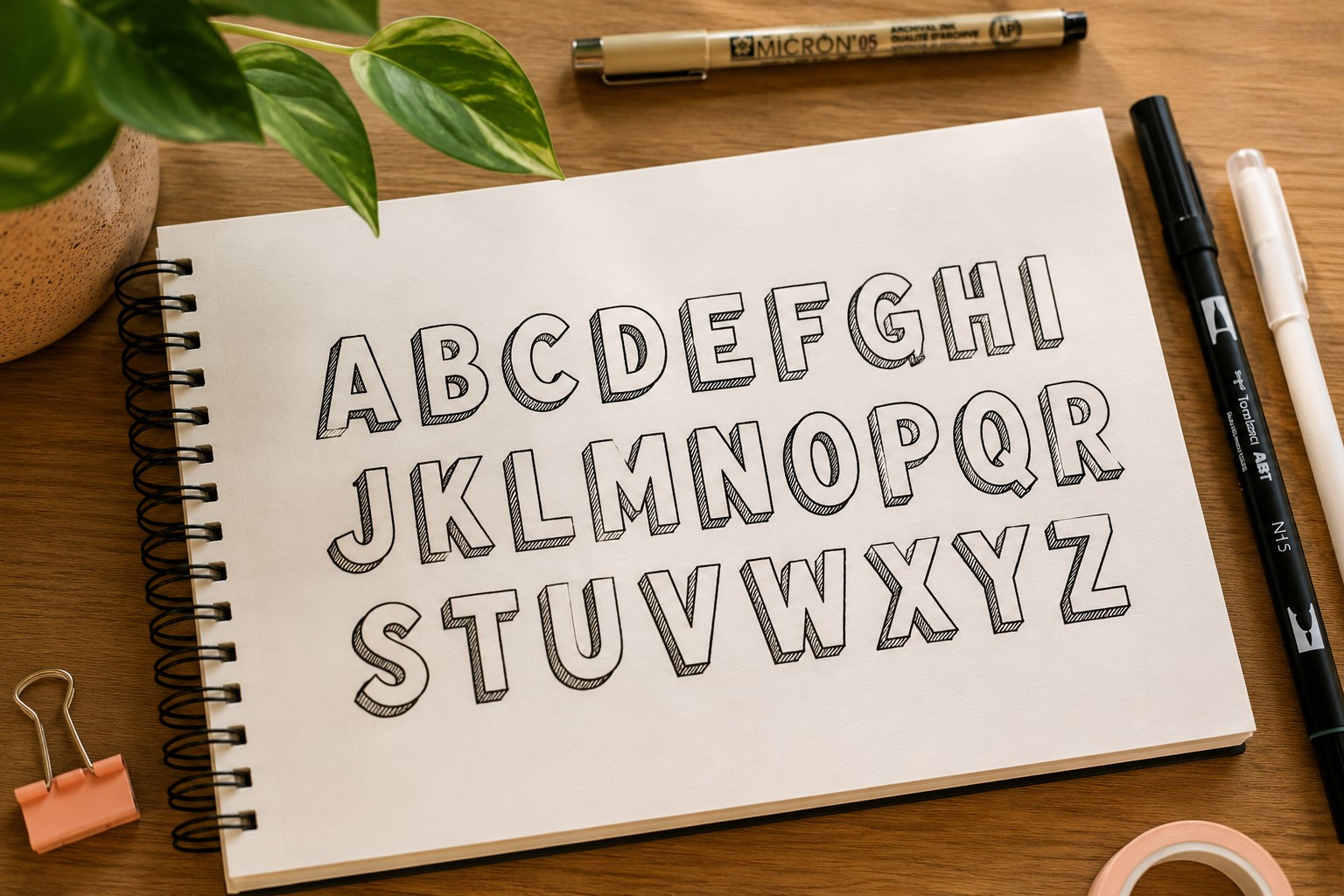
Imagine opening a bullet journal and seeing a bold title that instantly grabs your attention. Chances are, it is a block font.
This style remains one of the most popular Easy Bullet Journal Fonts because it looks impressive without requiring advanced skills.
The structure is simple. Start by writing your word lightly. Then draw larger outlines around each letter.
Once the outlines are complete, you can leave them empty or decorate them with patterns and color. Both approaches work beautifully.
Block fonts shine on monthly covers, yearly goals, and major section dividers. They create a strong visual anchor that helps organize the page.
Another benefit is that the letters stay highly readable even from a distance.
Many journal users eventually explore more decorative styles, yet they still return to block fonts because they are reliable, versatile, and easy to customize for almost any theme.
2. Bubble Font
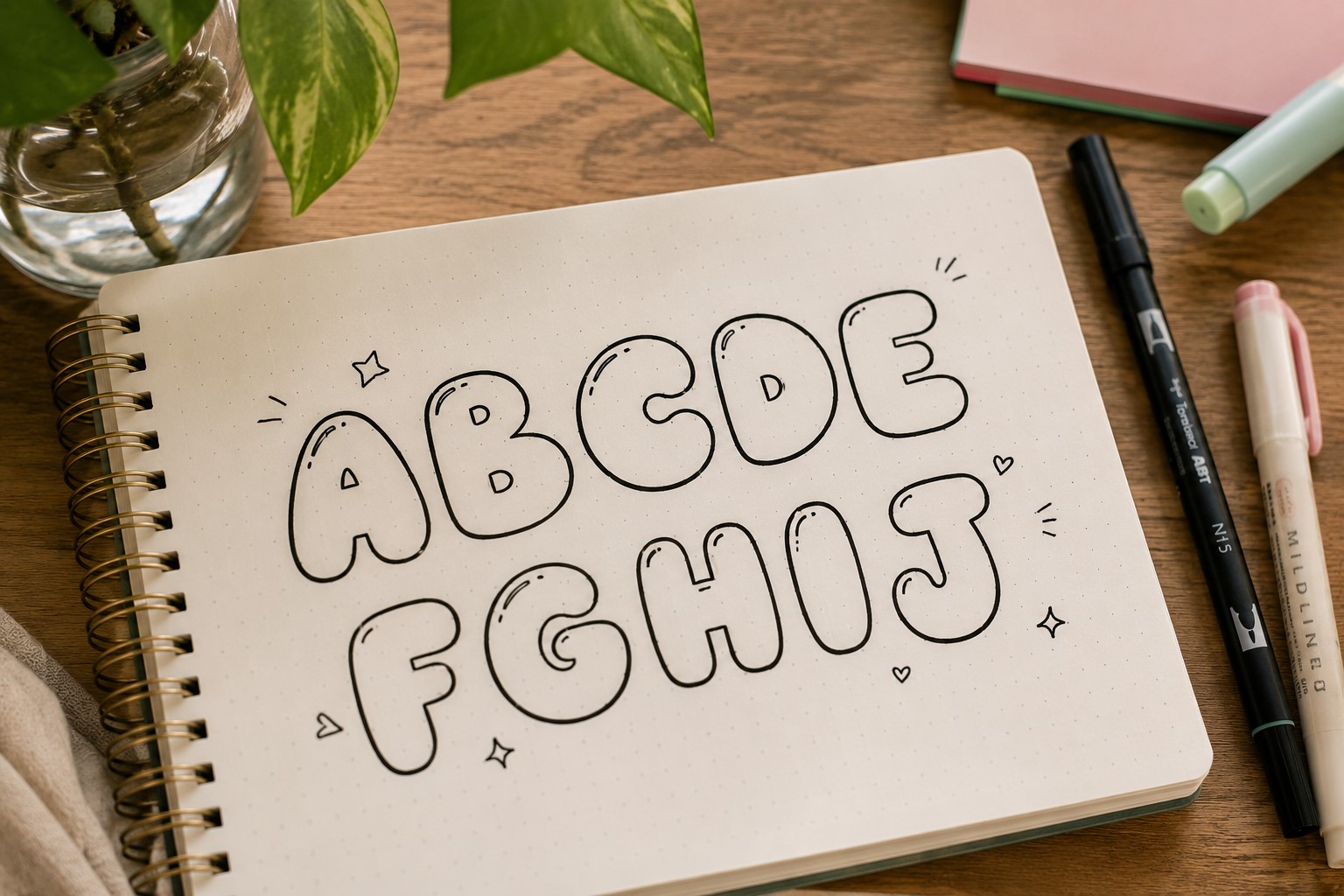
Some journal spreads need a little more personality. A bubble font can provide exactly that. The rounded letters instantly make a page feel friendlier and more relaxed.
Rather than focusing on perfectly straight lines, think about soft curves and smooth edges. The goal is to make each letter feel light and playful. Small imperfections often add charm rather than taking it away.
This style works especially well for birthday pages, memory spreads, wish lists, and creative challenges.
It also pairs nicely with colorful themes because the rounded letters already create a fun atmosphere.
Many people assume bubble lettering belongs only in children’s designs. In reality, it can look surprisingly stylish when used thoughtfully.
The key is keeping the spacing consistent and avoiding overcrowded letters.
3. Tall Skinny Font
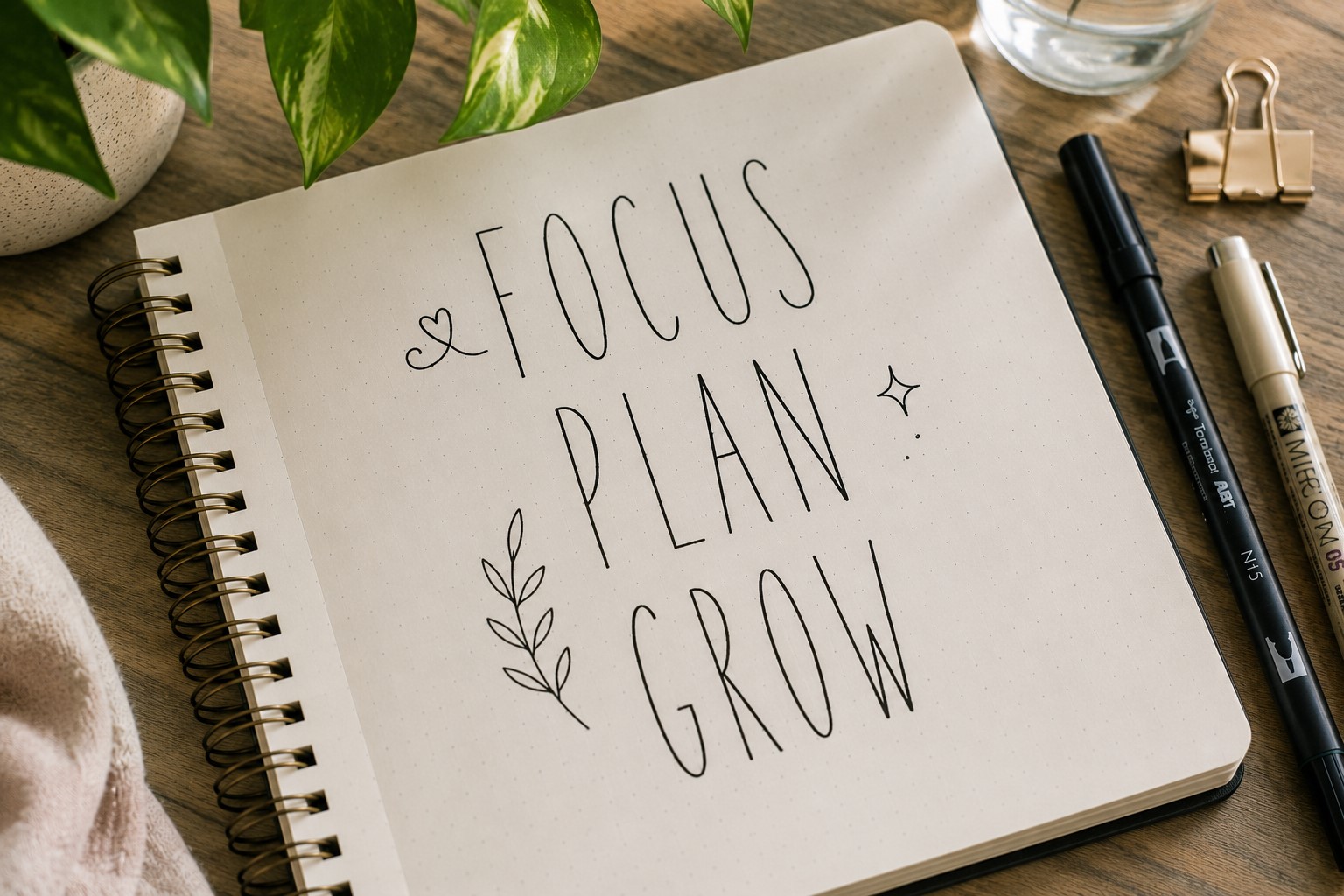
Have you ever tried fitting a long title into a narrow space? A tall skinny font solves that problem beautifully. Instead of making letters wider, you stretch them vertically.
This simple adjustment creates a surprisingly elegant appearance. The font feels modern and organized without demanding much attention.
That balance makes it useful in journals where the layout already contains decorative elements.
Many people discover this style by accident while trying to save space. Then they keep using it because it works so well. The letters look intentional, clean, and slightly sophisticated.
One helpful tip is to keep the spacing between letters consistent. Uneven gaps become more noticeable when letters are narrow. A little attention to spacing can dramatically improve the final result.
4. Rounded Print Font
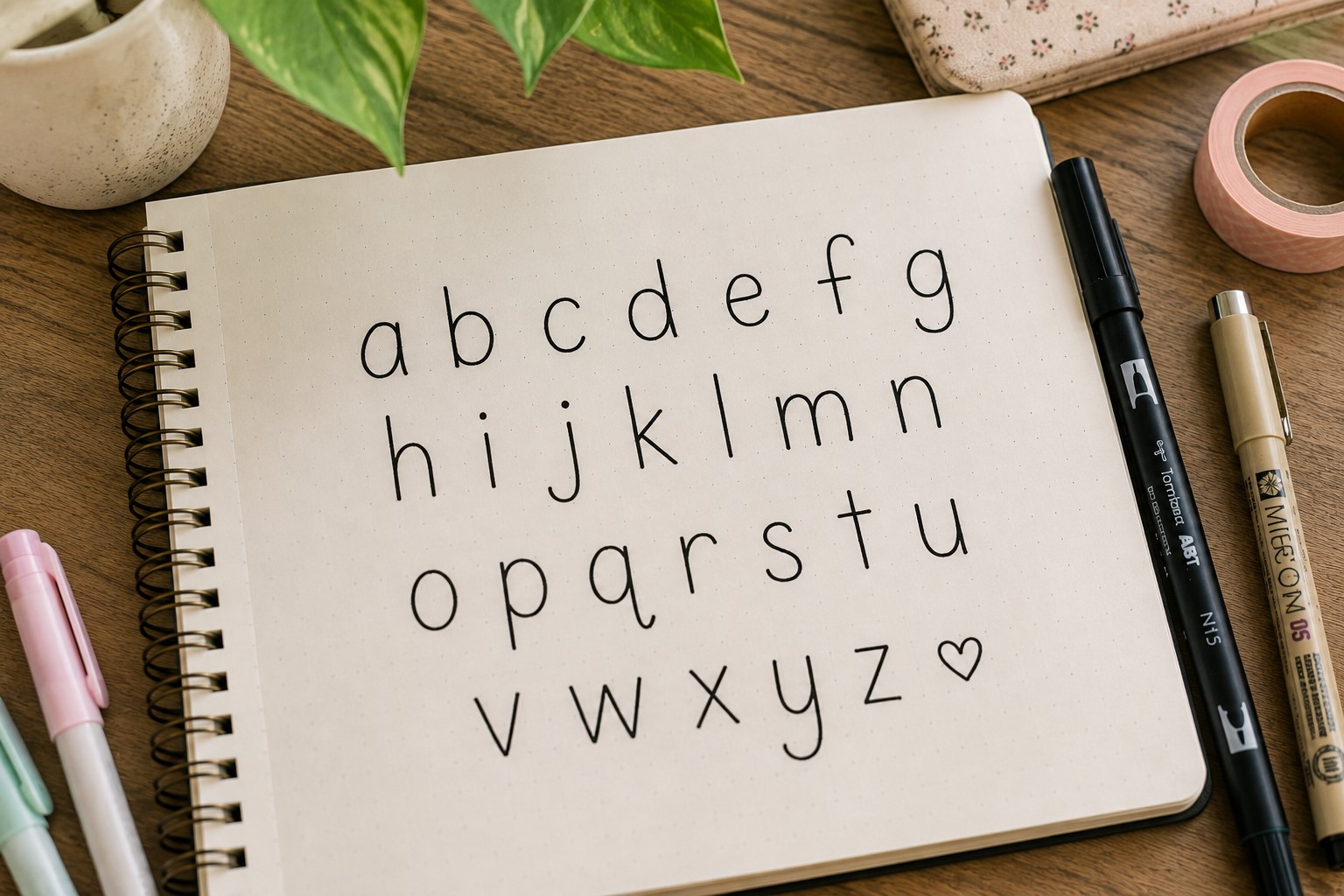
Not every title needs to make a bold statement. Sometimes a page benefits from lettering that feels calm and approachable. Rounded print lettering does exactly that.
The easiest way to create this font is by modifying your existing handwriting. Replace sharp corners with gentle curves. Round the ends of letters slightly.
Those small changes create a softer appearance without forcing you to learn a completely new style.
This font works beautifully in gratitude journals, wellness trackers, and reflective spreads. It feels welcoming without becoming overly decorative.
Many journal users appreciate how practical this font is. Unlike some styles that only work for titles, rounded print lettering remains readable throughout an entire spread.
For additional title inspiration, take a look at 21 Bullet Journal Title Lettering Ideas That Look Professional.
Fonts That Add Personality to a Page
5. Shadow Font
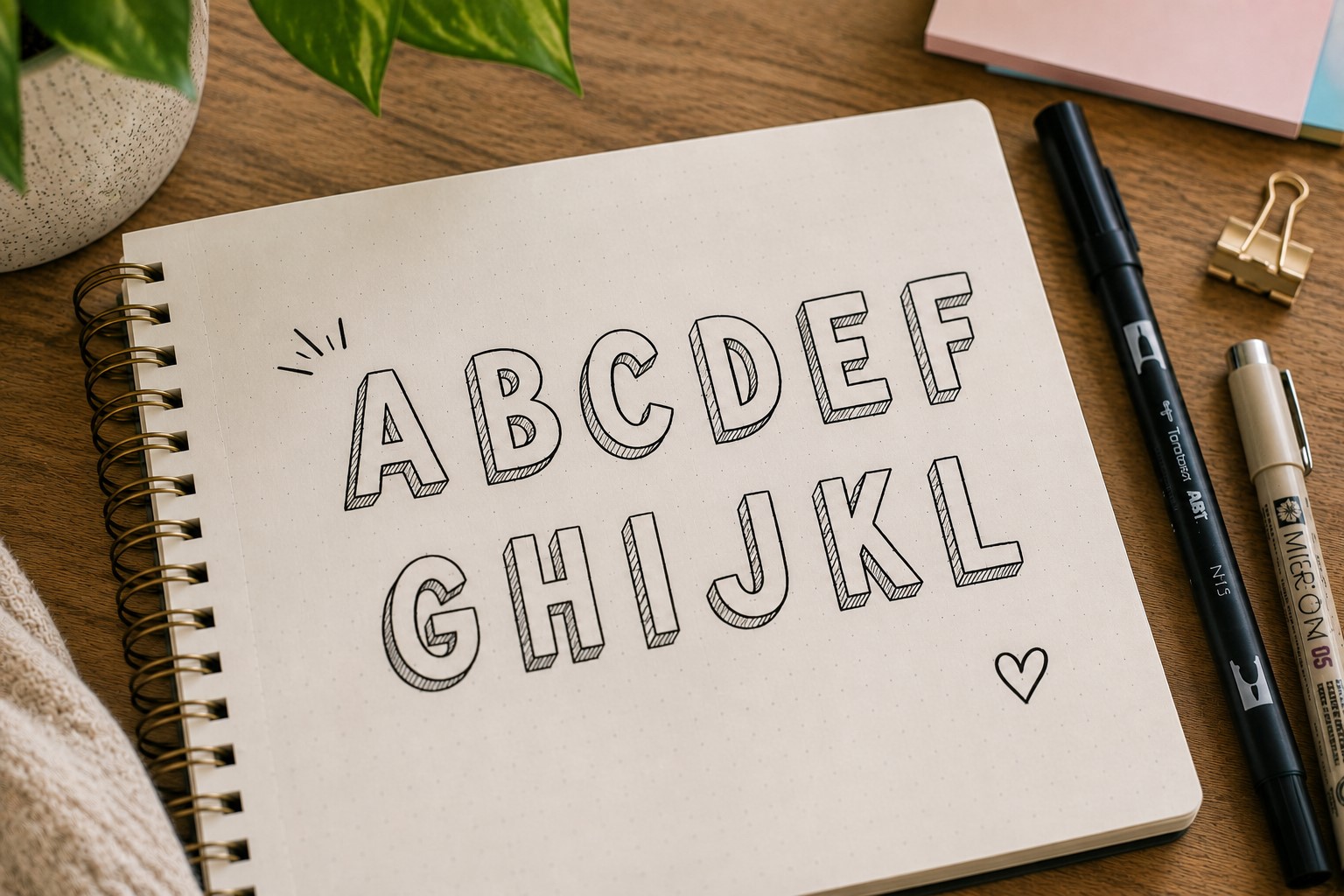
Sometimes a title looks good but still feels like something is missing. That missing detail might be a shadow. Adding a simple shadow can instantly make lettering look more polished.
The technique itself is straightforward. Draw your letters first. Then add a thin shadow along one side of each letter. Keep the direction consistent across the entire word.
The effect creates depth and helps the title stand out from the page. It also adds visual interest without making the design feel cluttered.
That balance makes shadow lettering one of the most practical Easy Bullet Journal Fonts to learn.
Smaller shadows usually look better than dramatic ones. A subtle effect often creates a cleaner and more professional appearance.
6. Serif Font
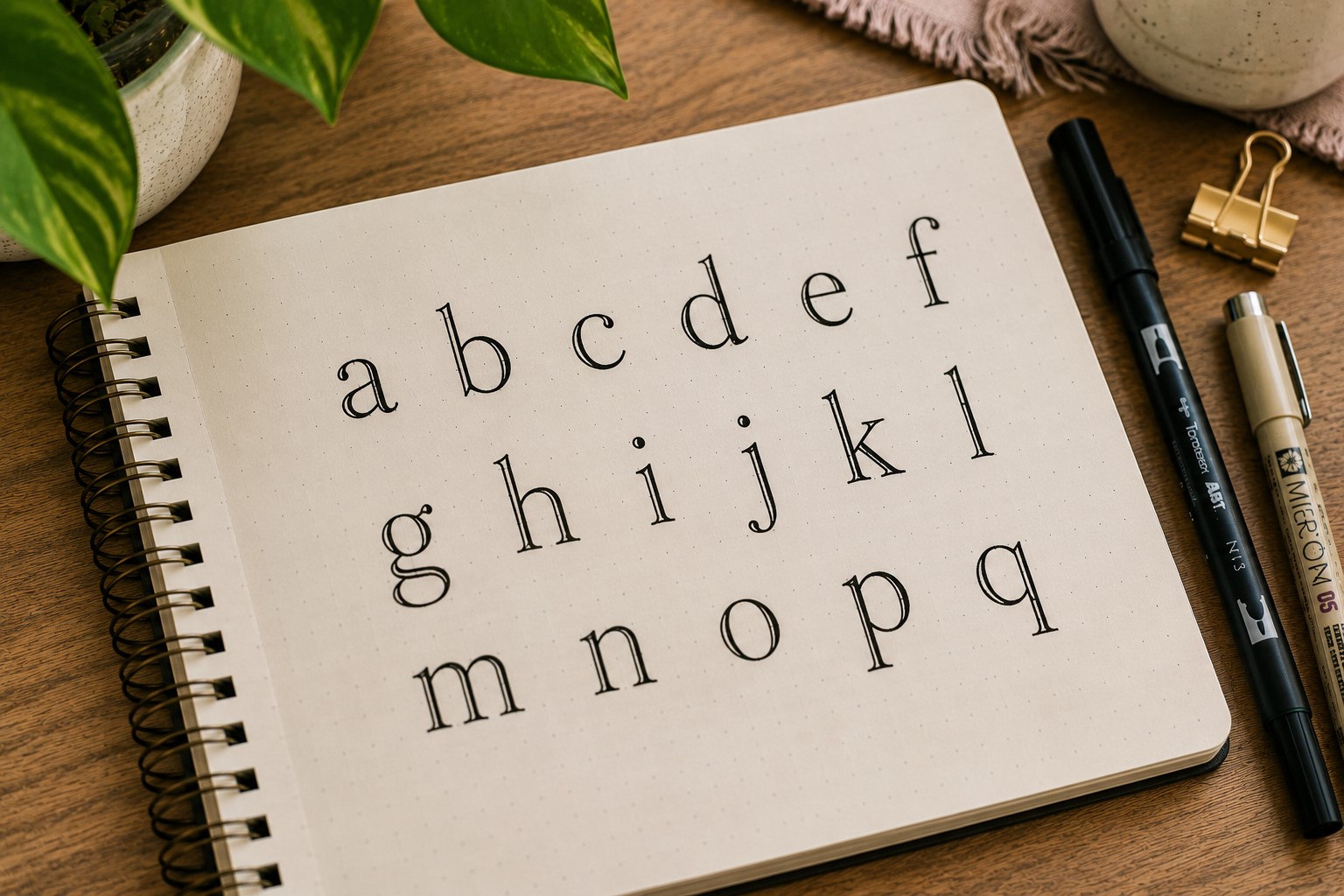
You have probably seen serif fonts in books, magazines, and newspapers for years. Those small finishing lines at the ends of letters create a timeless appearance that translates beautifully into bullet journals.
This style works especially well when you want a page to feel structured and refined. Reading logs, study planners, and goal-setting spreads often benefit from the extra sophistication.
Many beginners worry about drawing the tiny details correctly. Fortunately, the serifs do not need to be perfect. Even simple extensions can create the desired effect.
One reason this font remains popular is its balance. It feels decorative enough to stand out while remaining highly readable. That combination makes it useful for both titles and subheadings.
If you enjoy experimenting with elegant page designs, check out 25 Aesthetic Bullet Journal Lettering Ideas You’ll Love.
7. Outline Font
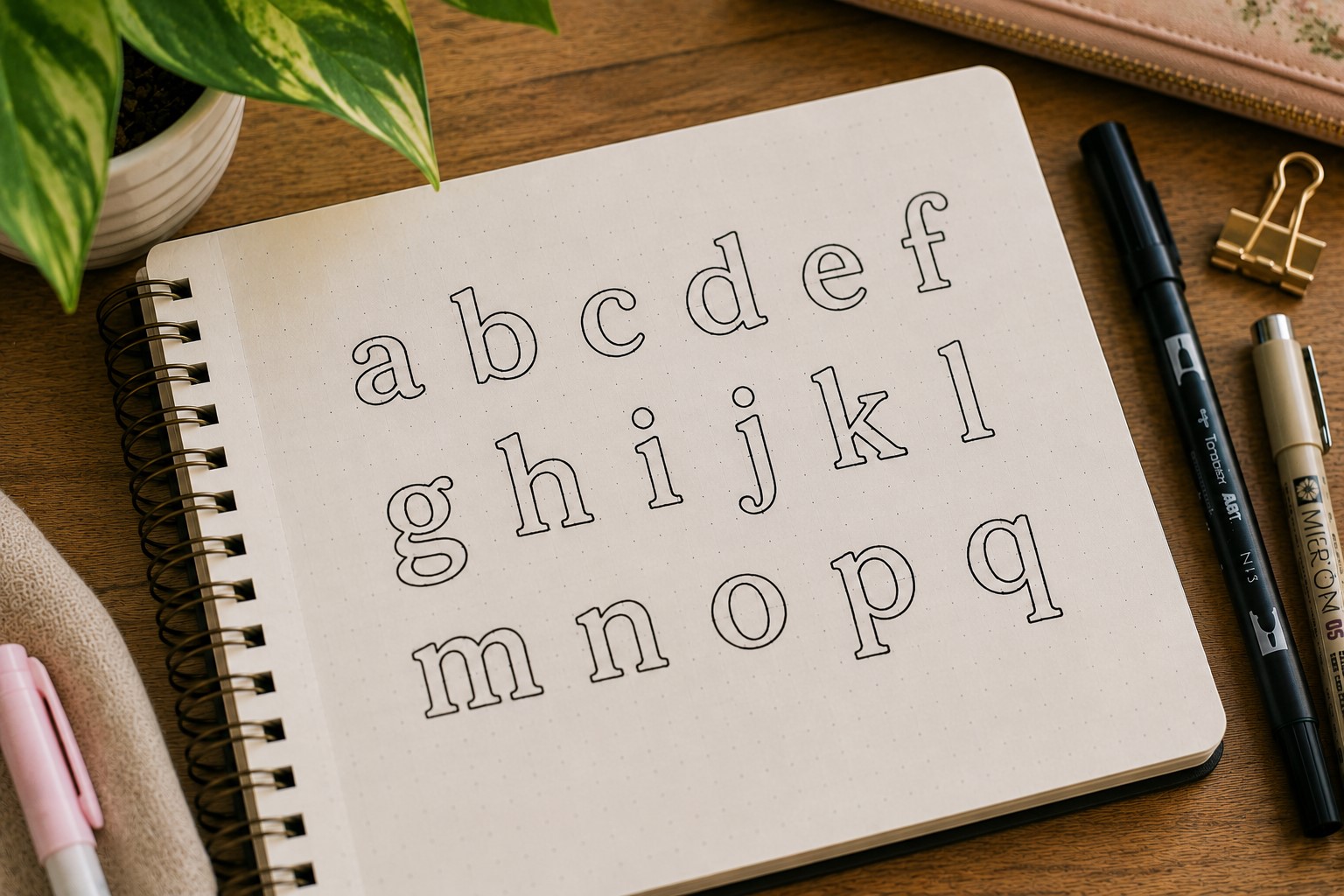
An outline font gives you two creative projects instead of one. First, you create the lettering. Then you decide what happens inside the letters.
Some journal users fill the letters with stripes. Others prefer dots, florals, checkerboard patterns, or seasonal themes. Every choice creates a different result while using the same basic font.
This flexibility makes outline lettering useful throughout the year. A spring spread can use floral details. A winter page can use snowflakes. The structure remains the same while the mood changes completely.
Outline lettering also gives beginners room to experiment without pressure. Small mistakes often disappear once decorative details are added inside the letters.
8. Faux Calligraphy Font
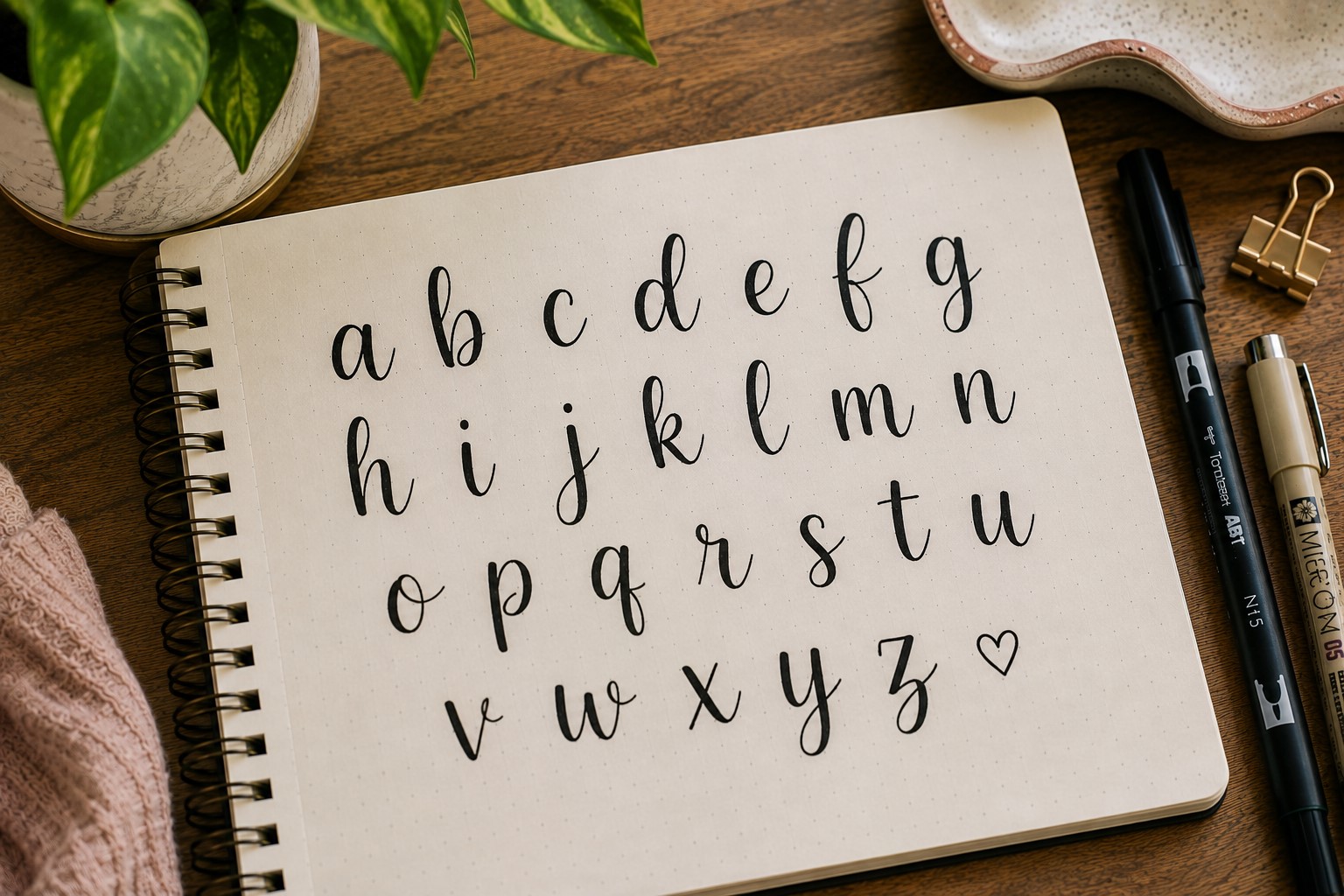
Many people fall in love with the look of brush lettering long before they learn how to create it. Faux calligraphy offers a much easier starting point.
Begin by writing a word in cursive. Next, identify every downstroke. Add a second line beside those strokes and fill the space between them. The result closely resembles traditional calligraphy.
What makes this style so appealing is the dramatic transformation. A simple word suddenly feels elegant and intentional. Yet the technique remains accessible to beginners.
This font works especially well for quote pages, gratitude spreads, and monthly covers where you want the title to feel special.
For more lettering inspiration, explore 17 Creative Bullet Journal Calligraphy Ideas to Try Today.
9. Monoline Font
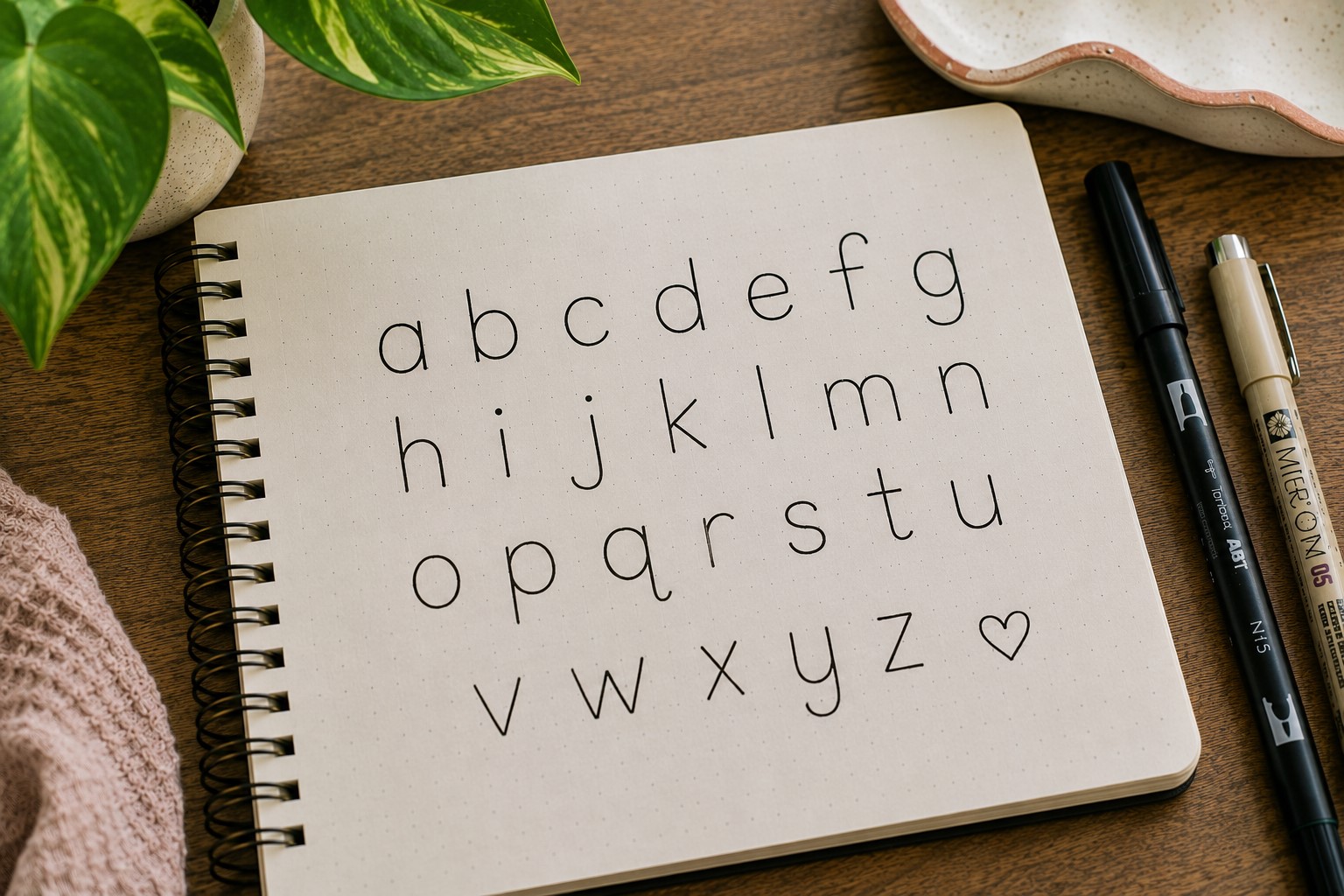
A monoline font follows one simple rule. Every stroke stays the same thickness. That consistency creates a clean and modern appearance that works in almost any journal.
Many people underestimate this style because it looks simple. Yet simplicity often becomes its biggest strength. The font feels organized, readable, and polished without relying on decorative effects.
This style pairs beautifully with minimalist layouts. It also works well in professional journals where clarity matters more than decoration.
Another advantage is speed. Once you become comfortable with the letter shapes, monoline fonts are quick to write. That makes them practical for everyday use rather than special occasions only.
Modern Fonts That Feel Fresh
10. Stacked Font
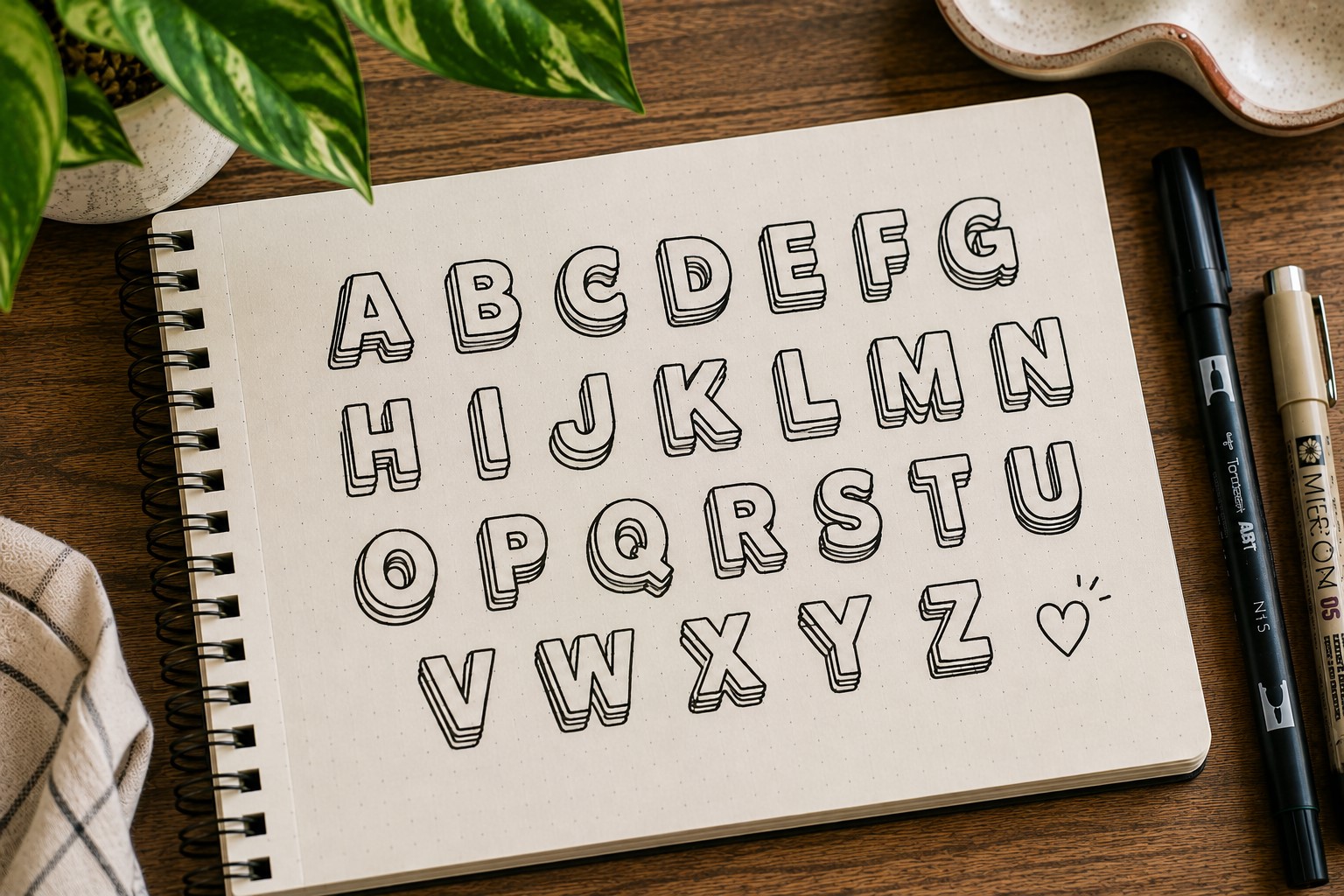
Some titles deserve attention even when space is limited. A stacked font helps achieve that by bringing letters closer together vertically.
The compact structure creates a bold visual presence. It also allows longer words to fit into smaller spaces without looking cramped. This makes stacked lettering especially useful for monthly covers and dashboard pages.
Many journal users discover this font while experimenting with layouts. Once they see how much space it saves, they continue using it regularly.
One helpful trick is to sketch the overall shape lightly before committing to the final lettering. Planning the layout first often creates a more balanced result.
If you want stronger page layouts overall, visit How to Create Gorgeous Bullet Journal Headers in 15 Steps.
11. Geometric Font
Some fonts feel artistic because they are built from shapes rather than handwriting. Geometric lettering is a great example.
Instead of focusing on traditional letter forms, think about circles, rectangles, triangles, and straight lines. Building letters from these shapes creates a bold and modern appearance.
This font works especially well in productivity spreads and minimalist designs. The structured look naturally complements organized layouts.
One reason many people enjoy geometric lettering is that it feels different. It encourages you to think about letters as design elements rather than simply words on a page.
12. Double-Line Font
A double-line font creates visual interest with very little extra effort. Each letter contains two parallel outlines rather than one.
At first glance, the effect seems minor. Yet the added dimension helps titles stand out and feel more decorative. The font remains clean while offering more personality than standard lettering.
The empty space between the lines also creates opportunities for creativity. Some people add color. Others leave it blank for a minimalist look.
This style works especially well for seasonal covers, project pages, and themed spreads where a simple font might feel too plain.
For more creative typography ideas, check out 29 Bullet Journal Font Ideas to Make Your Pages Pop.
Decorative Fonts That Elevate Any Spread
13. Ribbon Font
The ribbon font looks much more difficult than it actually is. That is one reason so many journal users love it.
At first glance, the letters appear folded and layered, almost like pieces of ribbon twisting across the page. Yet once you understand the basic structure, the style becomes much easier to recreate.
The simplest approach is to start with block letters. After drawing the letters, add small folded sections where parts of the ribbon appear to overlap.
These extra details create depth and movement without requiring advanced drawing skills.
This font works especially well for celebration pages, birthday spreads, yearly goals, and seasonal covers. It naturally attracts attention, so it performs best when used for major titles rather than smaller headings.
A common mistake is adding too many folds. Keeping the design simple often creates a cleaner and more professional result.
14. Dotted Font
Not every font needs bold lines to stand out. Sometimes the smallest details create the biggest impact. A dotted font proves that beautifully. Instead of drawing solid letters, you build each letter using a series of small dots.
The finished result feels playful, creative, and slightly whimsical. It can soften a page that feels too structured or serious.
Many journal users enjoy using dotted fonts because they create texture without adding visual weight.
This style works particularly well in spring spreads, habit trackers, mood logs, and creative journals. It also pairs nicely with floral themes and decorative doodles.
One helpful tip is to keep the spacing between dots relatively consistent. Uneven spacing can make the lettering look messy rather than intentional.
If you enjoy combining lettering with decorative elements, explore 15 Easy Bullet Journal Doodle Borders Anyone Can Draw.
15. Banner Font
Sometimes the font itself stays simple while the presentation creates the magic. That is exactly what happens with a banner font.
Instead of focusing only on the lettering, you place the title inside a decorative banner.
The banner immediately gives the heading more importance. Even ordinary handwriting can look polished when framed by a well-designed ribbon or label.
This makes banner fonts perfect for beginners who want impressive results without learning complicated lettering techniques.
The style works especially well on monthly covers, section dividers, and special event pages. It naturally draws attention while helping organize information.
Many journal users discover that banner fonts become one of their most-used styles because they work with nearly every theme imaginable.
16. Floral Font
A floral font brings together two things many journal lovers already enjoy: lettering and doodling. Instead of keeping letters plain, you decorate them with flowers, leaves, vines, or small botanical accents.
The key is balance. You do not need to cover every letter with decoration. In many cases, adding floral details to just a few letters creates a more elegant result. Too many embellishments can make the title difficult to read.
This font works beautifully in spring layouts, gratitude journals, self-care spreads, and memory pages. The natural elements add warmth and personality without overwhelming the design.
One reason floral fonts remain popular is that no two versions ever look exactly the same. Each person develops their own approach over time.
For more decorative lettering inspiration, take a look at 11 Decorative Bullet Journal Lettering Ideas for Stunning Pages.
Fonts That Get Better With Practice
17. Hand-Drawn Script Font
A hand-drawn script font feels personal in a way many other styles do not. The letters flow naturally across the page and create a relaxed appearance that works beautifully in reflective spreads.
Unlike traditional calligraphy, this style does not require strict rules. The goal is not perfection. The goal is creating smooth movement from one letter to the next. Slight imperfections often make the font feel more authentic.
This style works especially well for journal prompts, personal reflections, quote pages, and gratitude entries. It creates a softer atmosphere that encourages readers to slow down and engage with the content.
Many people find this font intimidating at first. Yet after a few practice sessions, it often becomes one of their favorite styles because it feels so natural to write.
18. Mixed Font Style
Some of the most eye-catching journal titles use more than one font. A mixed font style combines different lettering approaches within a single heading. The contrast instantly creates visual interest.
For example, one word might use bold block letters while another uses a thin script font. The difference helps certain words stand out and creates a stronger visual hierarchy. Readers naturally notice the most important part of the title first.
Many beginners make the mistake of combining too many styles. That usually creates confusion instead of contrast. Starting with only two fonts often produces the best results.
One reason Easy Bullet Journal Fonts are so useful is that they work beautifully together. Mixing simple styles often creates a more impressive result than relying on one complicated font.
If you enjoy experimenting with decorative page designs, check out How to Make Beautiful Bullet Journal Headers in 13 Easy Steps.
19. Refined Everyday Handwriting
The final font on this list may surprise you. It is your own handwriting. Many journal users spend months searching for the perfect font while overlooking a style they already use every day.
The secret is not changing your handwriting completely. Instead, make small improvements. Increase the spacing slightly. Keep the letter height more consistent.
Slow down when writing titles. These simple adjustments often create a dramatic difference.
A refined handwriting font feels authentic because it belongs to you. No one else will create exactly the same result. That uniqueness gives your journal personality and character.
Many experienced journal users eventually return to this approach. They discover that the most sustainable lettering style is often the one that feels natural to write.
Final Thoughts
Learning new fonts can feel overwhelming at first. There are countless styles online, and it is easy to believe you need to master all of them. In reality, most people regularly use only a handful of favorites.
A small collection of reliable Easy Bullet Journal Fonts can completely transform your journal without making the process stressful.
As you experiment, focus on finding styles that match the way you actually journal. A decorative ribbon font might be perfect for monthly covers.
A monoline font might work better for everyday pages. The goal is not to copy every lettering trend. The goal is to build a collection of fonts that fit your personal style and workflow.
The more you practice these Easy Bullet Journal Fonts, the more natural they will feel. Over time, you will start mixing techniques, creating variations, and developing your own unique approach.
Those skills work beautifully alongside strong lettering and can help every spread feel more complete.